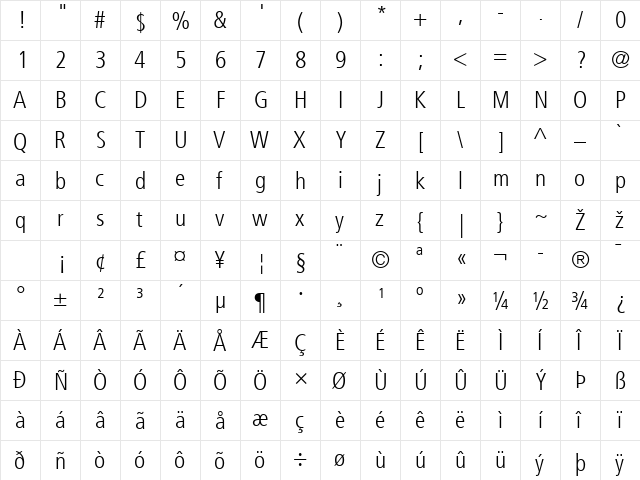
Frutiger LT 47 LightCn Regular
| Designer | Adrian Frutiger |
Design Context for Frutiger LT 47 LightCn Typeface
Frutiger LT 47 LightCn offers clean, dependable letterforms without strong stylistic allegiance, making it a practical choice for designers who need flexibility. Its slender proportions lend an understated elegance to any composition.